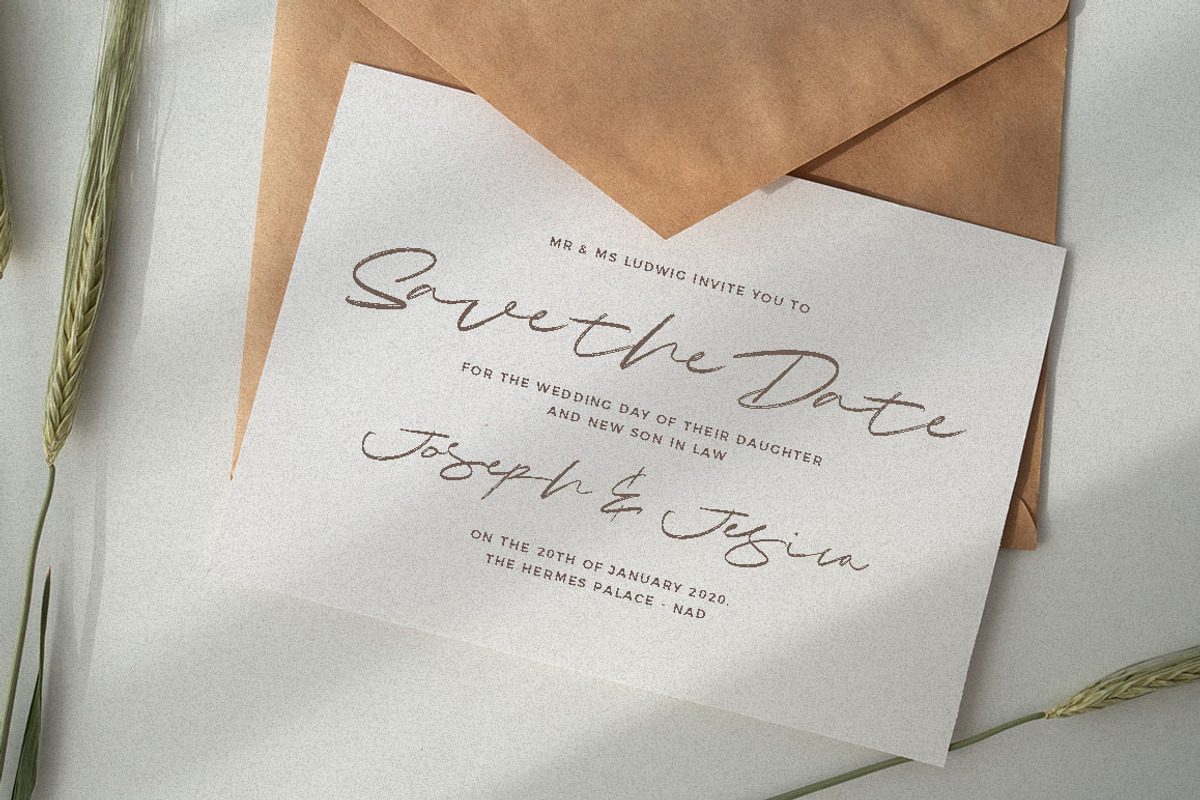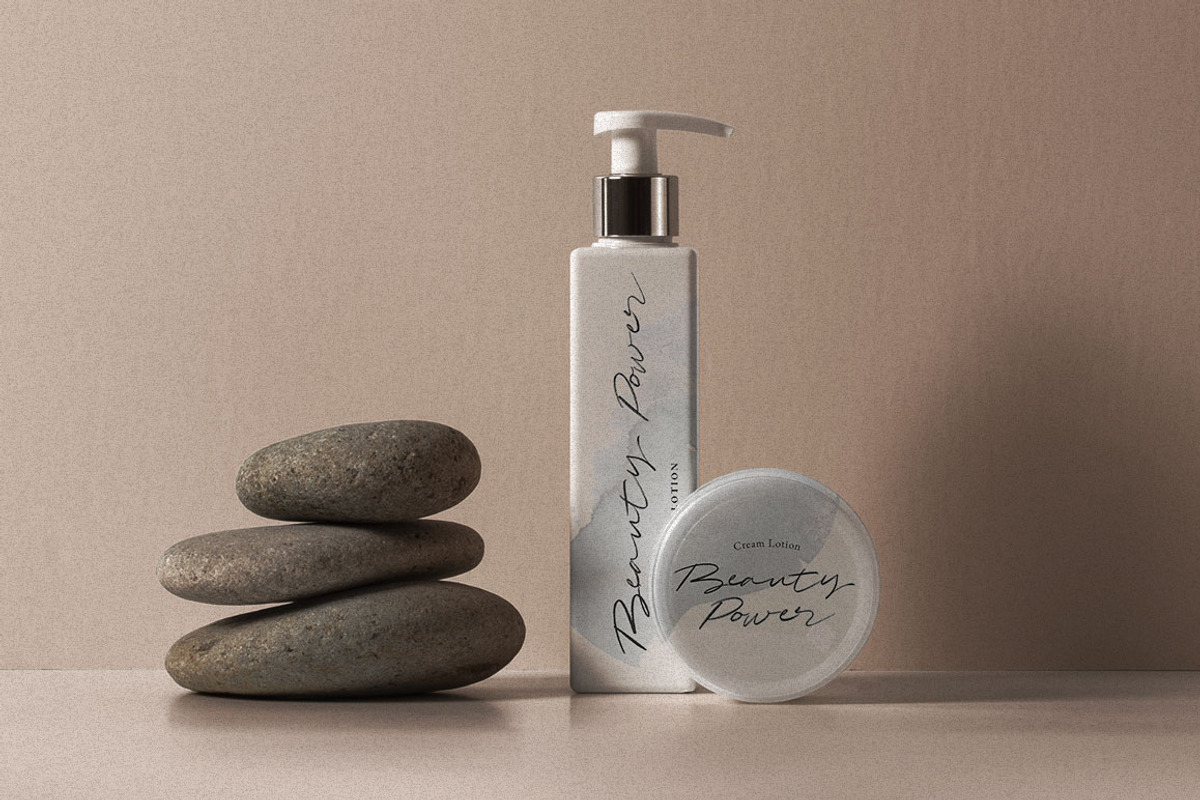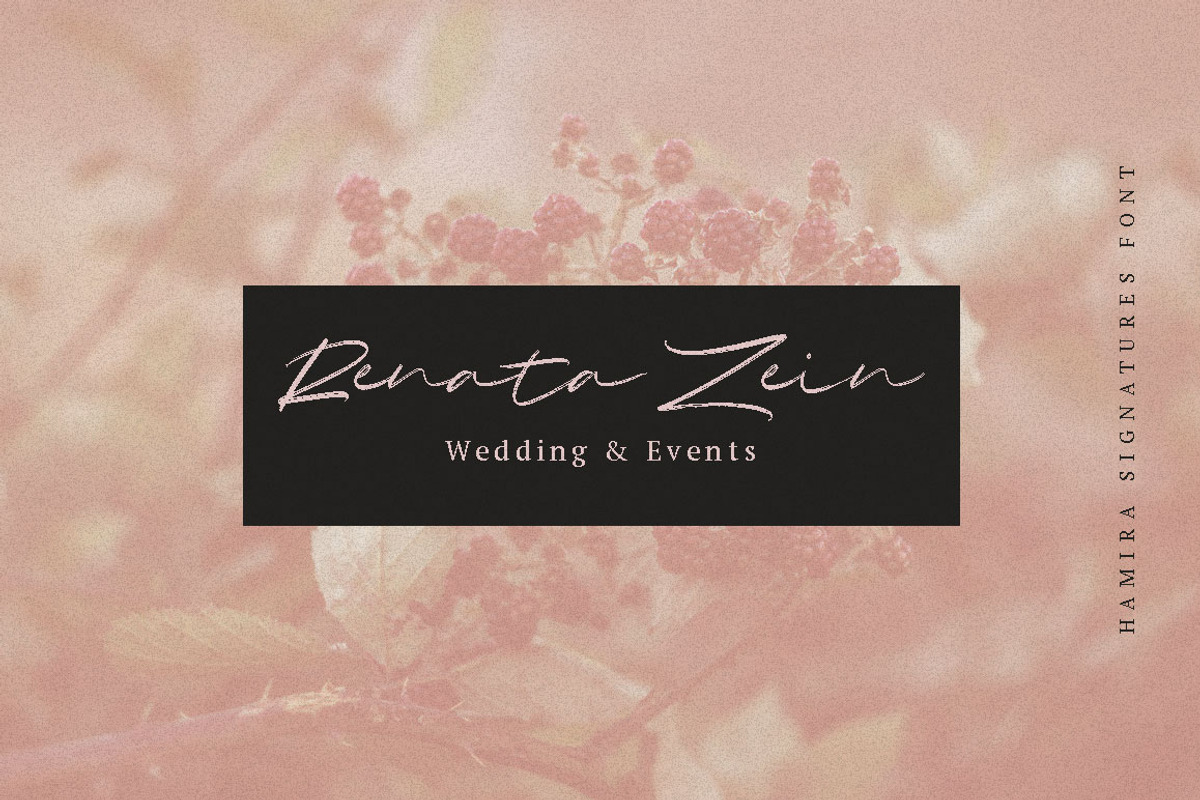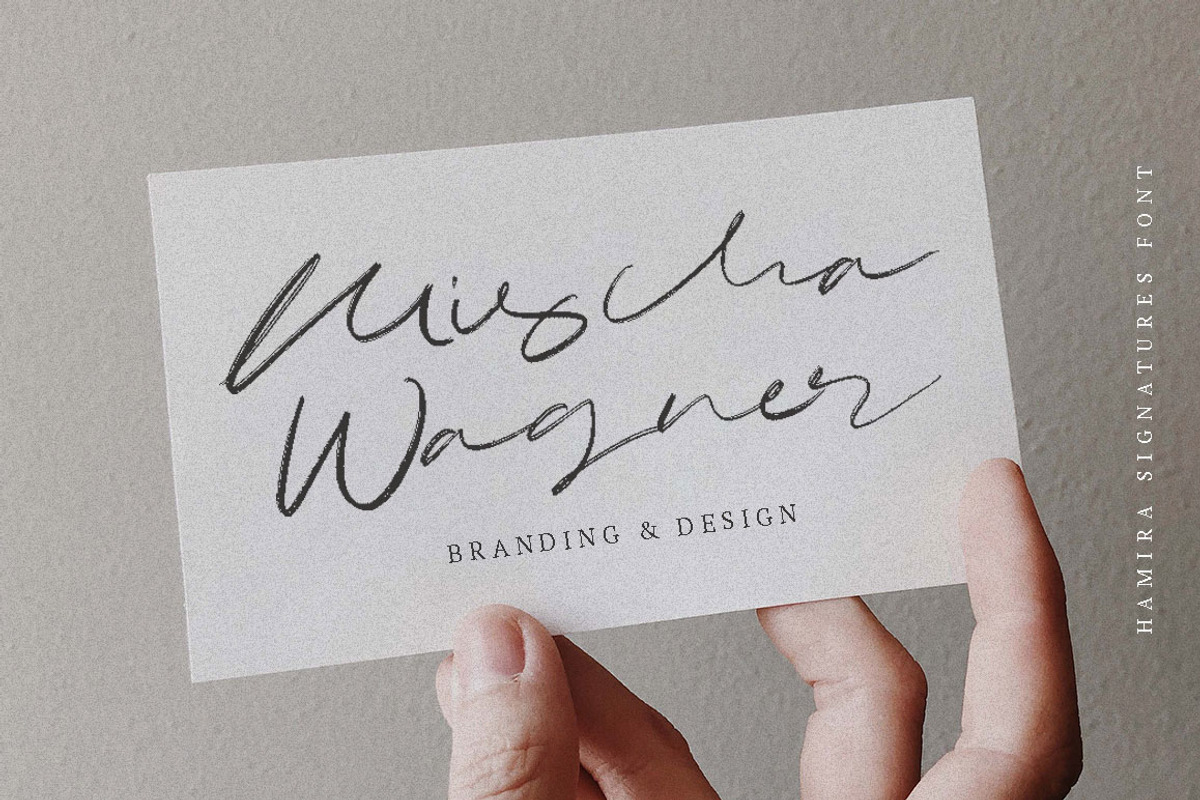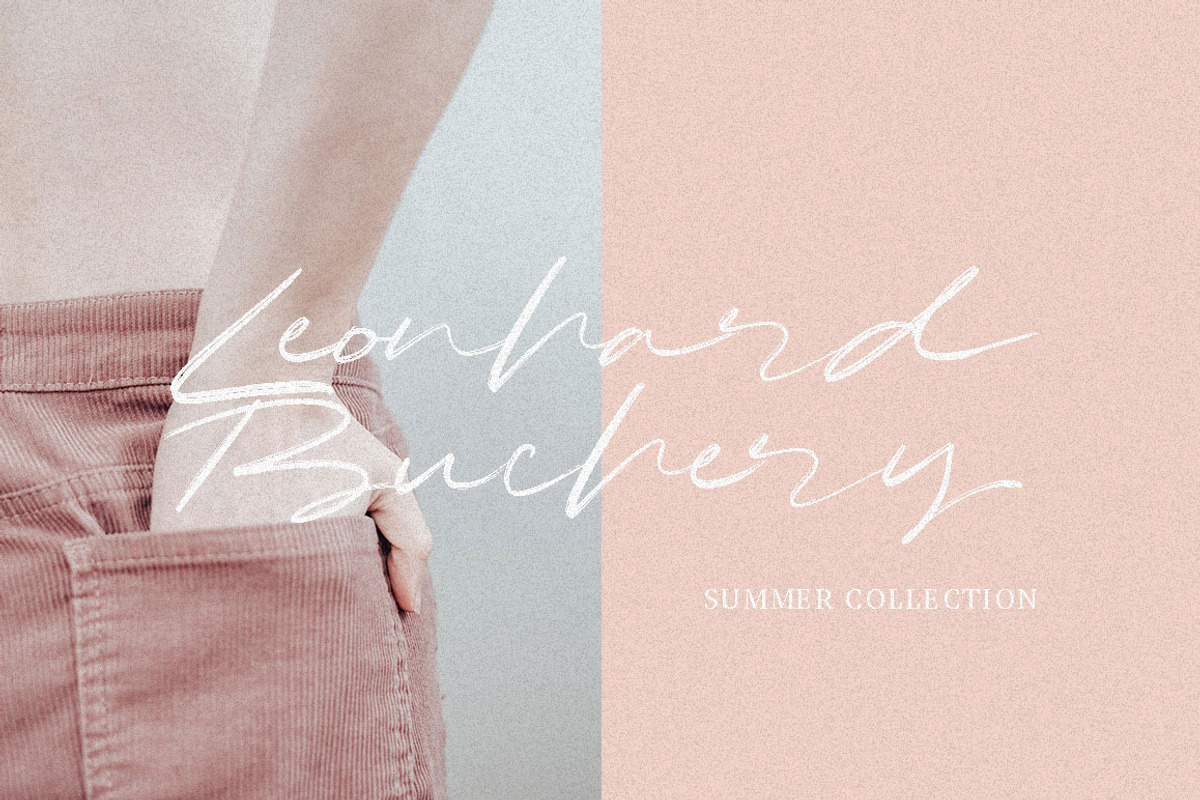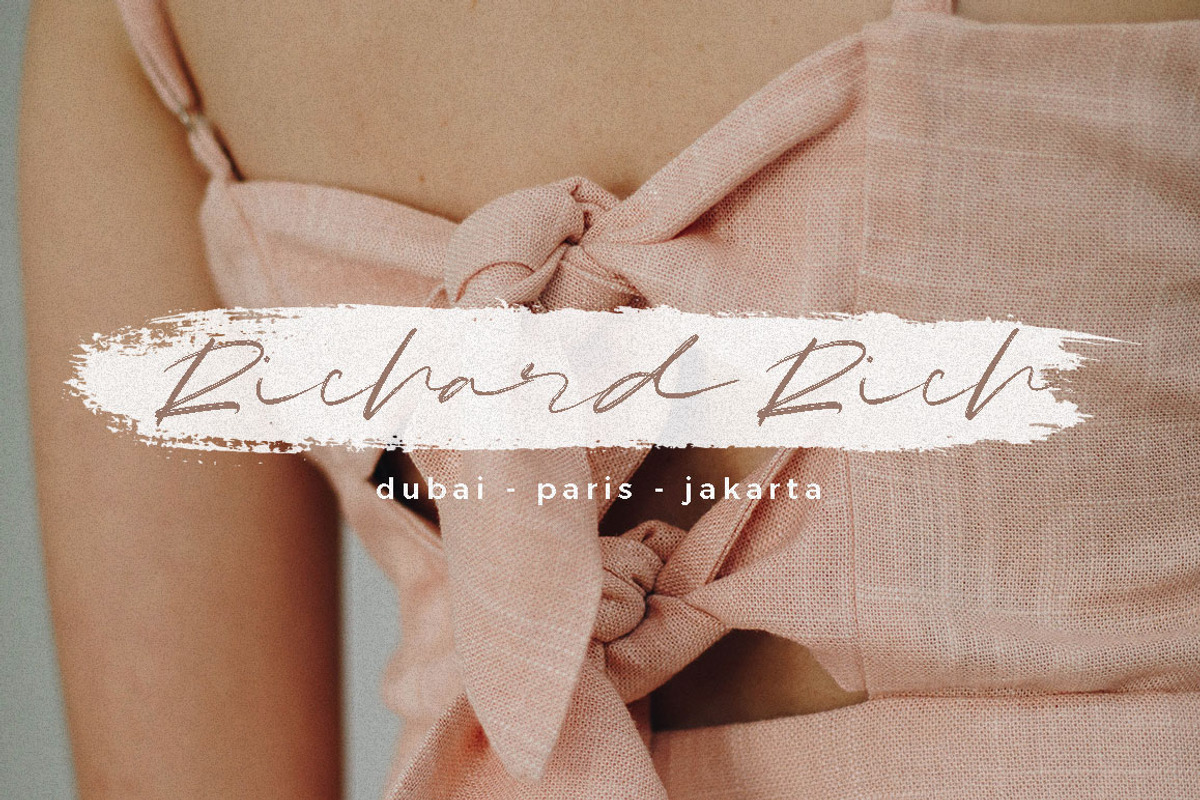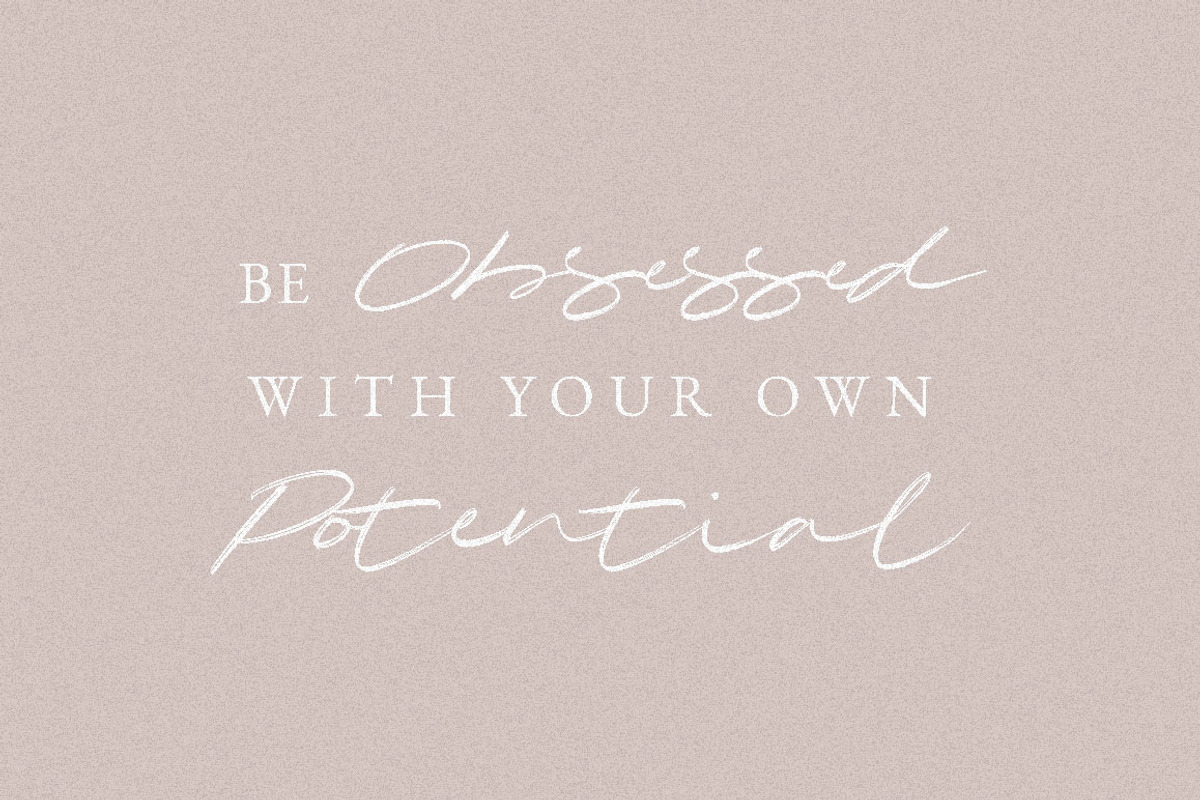
Hamira - Signature Brush Font
Hamira Script is perfect for branding projects, logo, wedding designs, social media posts, advertisements, product packaging, product designs, label, photography, watermark, invitation, stationery and any projects that need handwriting taste.
Hamira - Signature Brush Font by Dirtytemp Studio fits naturally into Branding, posters, packaging, typography.